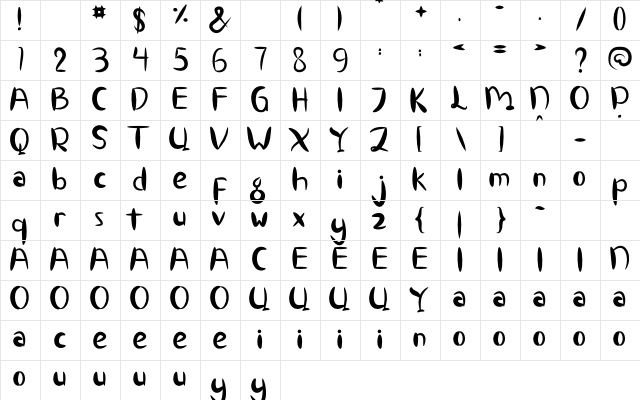
MINIMUM DEDLOCK Regular Font Preview
MINIMUM DEDLOCK Regular
Design Context for MINIMUM DEDLOCK Typeface
MINIMUM DEDLOCK is a composed and adaptable typeface that performs quietly and consistently across a wide range of design contexts.